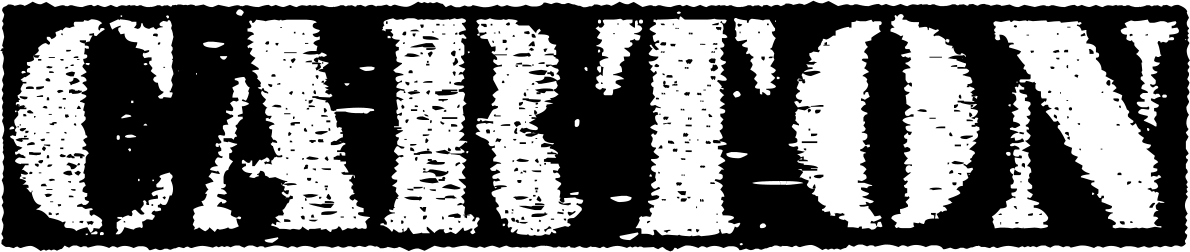
Carton Font
Carton is retro, weathered, and bold. It is a box, stencil font. Your texts and content in this font will look powerful, and strong. If you want your brand to sound like that Carton would work best for you.
This distressed stencil font comes without the lowercase letters in the character collection. You can use Carton in military displays, movies, posters, packaging, and so forth!